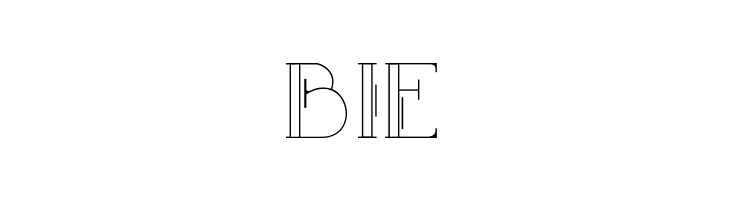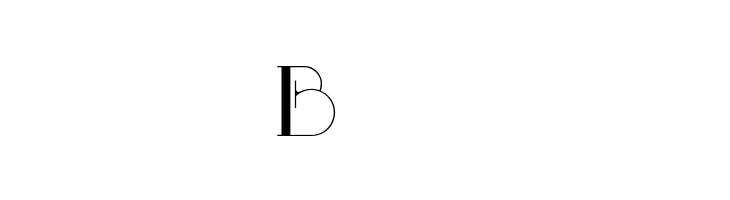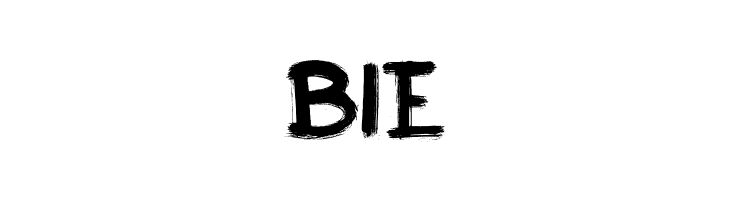
• Do You Like My Font Andy
A bold, angular, and geometric font with a dynamic and edgy style.
• Mary [CAPS] Outline
An elegant outline font with geometric and classic elements, perfect for decorative use.
• Mary [CAPS]
A modern, high-contrast font with geometric and elegant features.
• Boutique
A bold, textured font with a vintage, handcrafted appearance.
• Anorexia
A chaotic, distressed font with jagged, irregular strokes and a rebellious style.
• A Gothique Time
A gothic, distressed font with ornate and intricate letterforms.
• Inky
A bold, brush-stroke style font with a dynamic and artistic appearance.
• Apotheque Hand
A whimsical, hand-drawn font with tall, narrow characters and a playful style.
• Apotheque Regular
An artistic and elegant font with decorative flourishes and a blend of classic and modern styles.
• Bonez
A bone-inspired font with jagged, hand-drawn strokes for a bold, edgy look.